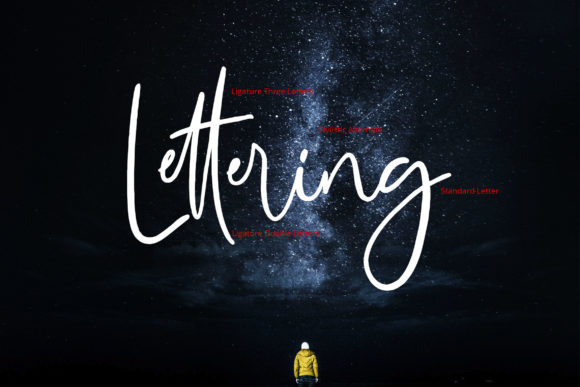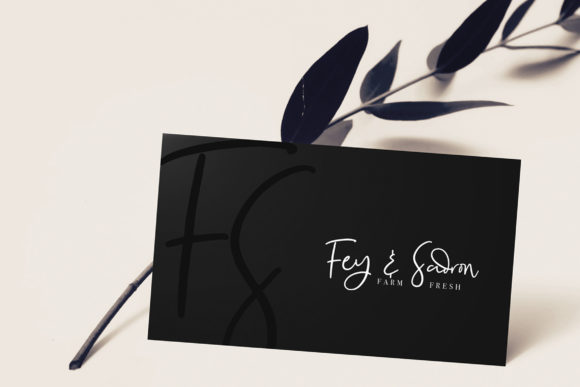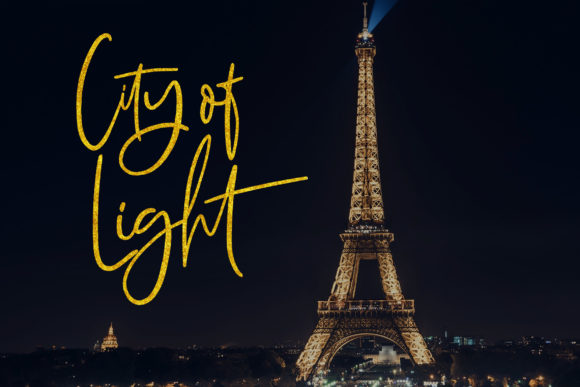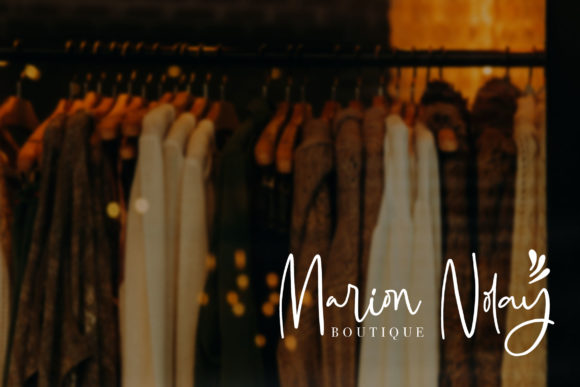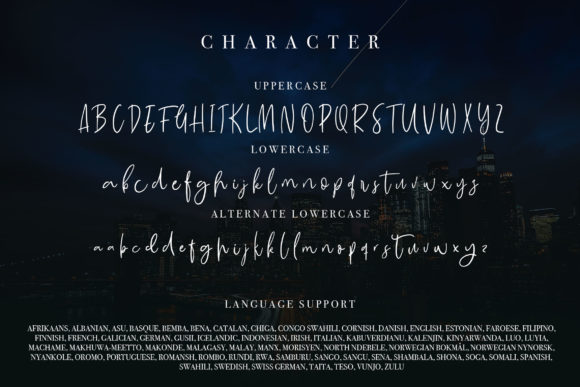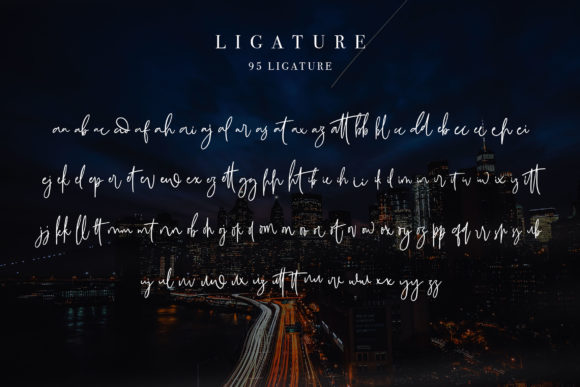
HomeScript FontsMadeleine Font Script Fonts Madeleine Font FacebookXPinterestWhatsApp Madeleine Font Poster 3 Madeleine Font Poster 4 Madeleine Font Poster 5 Madeleine Font Poster 6 Madeleine Font Poster 7 Madeleine Font Poster 8 About Madeleine Font Madeleine is a stunning handwritten font with a bold twist. Use it to turn any design project into a stand out! DOWNLOAD NOW People also explored Karasi Font Ludhovicf Bold Font Elephant Font Texas Font Violina Speed Hamer Font Fishing Style Font Thinking Quick Font Jager Signature Font 315 0 TagsMadeleine Font Previous articleAllizarin FontNext articleSanpaullo Font LEAVE A REPLY Cancel reply Comment: Please enter your comment! Name:* Please enter your name here Email:* You have entered an incorrect email address! Please enter your email address here Website: Save my name, email, and website in this browser for the next time I comment. Personal Use Free Waverly Date Personal Use Free Read more about this font Child Writing Free Personal Use Free Read more about this font Gratisan Personal Use Free Read more about this font Aelten Personal Use Free Read more about this font BLOG How to Install and Use Fonts on Windows, macOS, and Web Projects How to Install and Use Fonts on Windows, macOS, and Web Projects Fonts are a crucial part of design and branding. Whether you’re designing a... How to Cut Any Font on Cricut: Convert a Font to SVG (Free) Best Fonts for YouTube Videos: Make Your Thumbnails Stand Out Fonts That Capture the Spirit of New York City